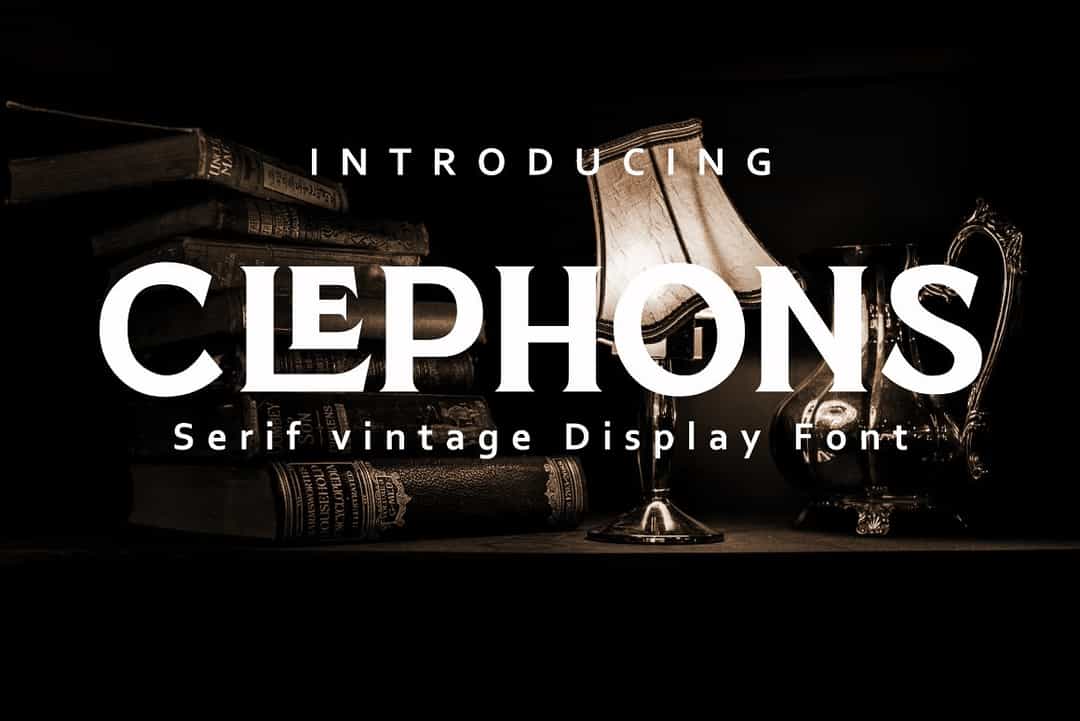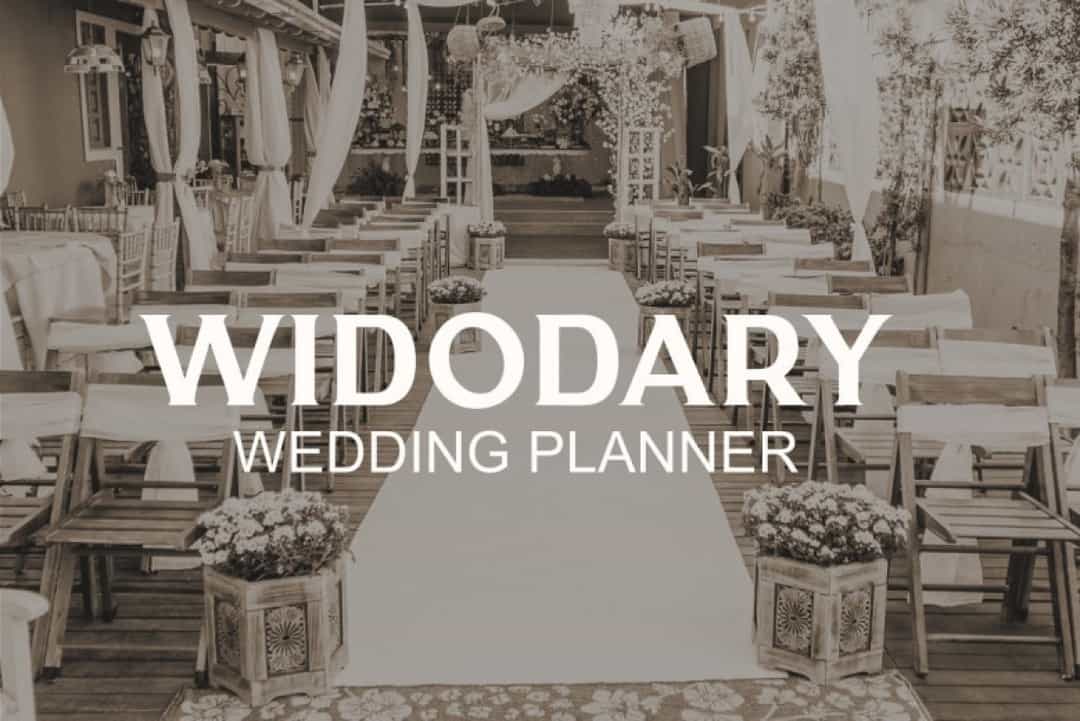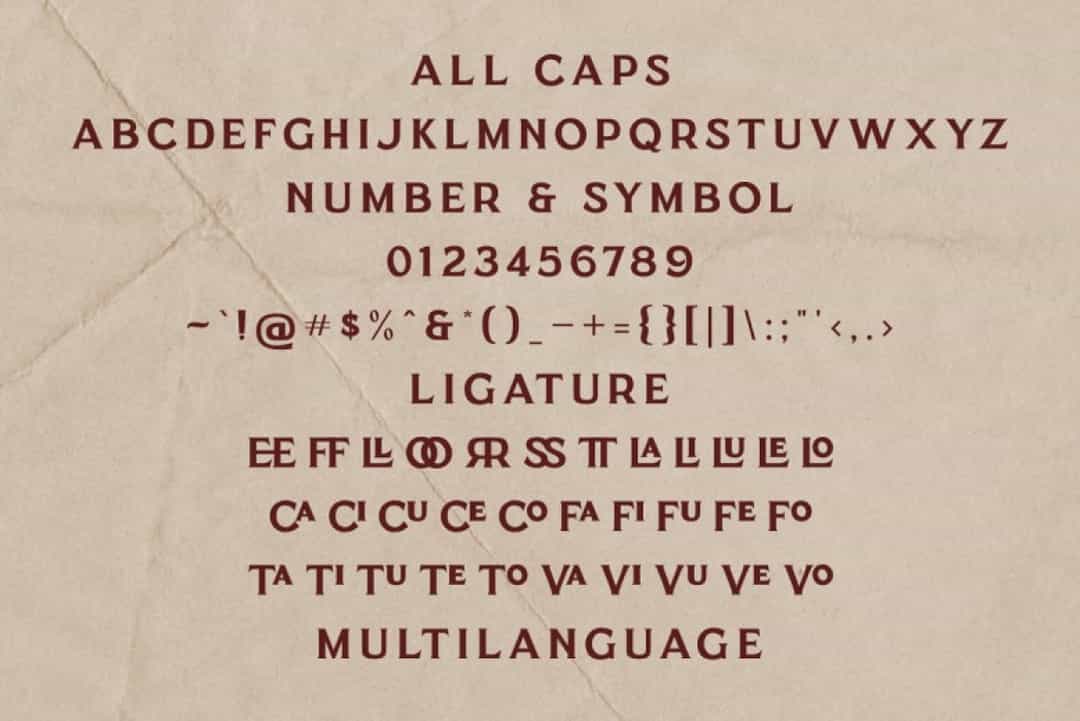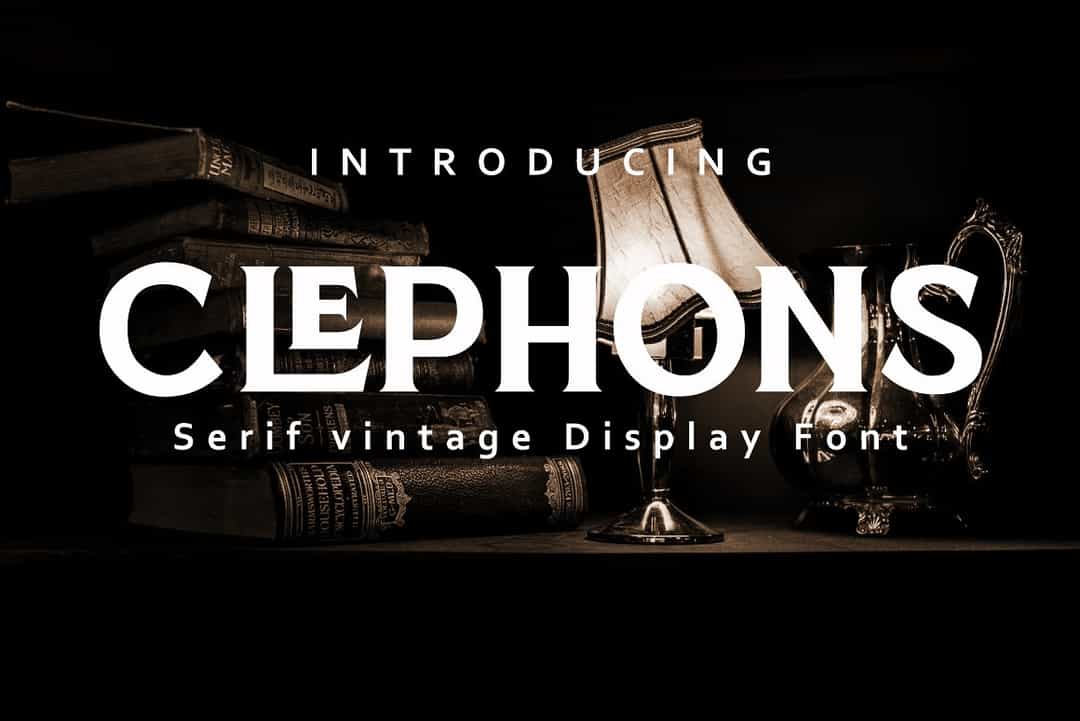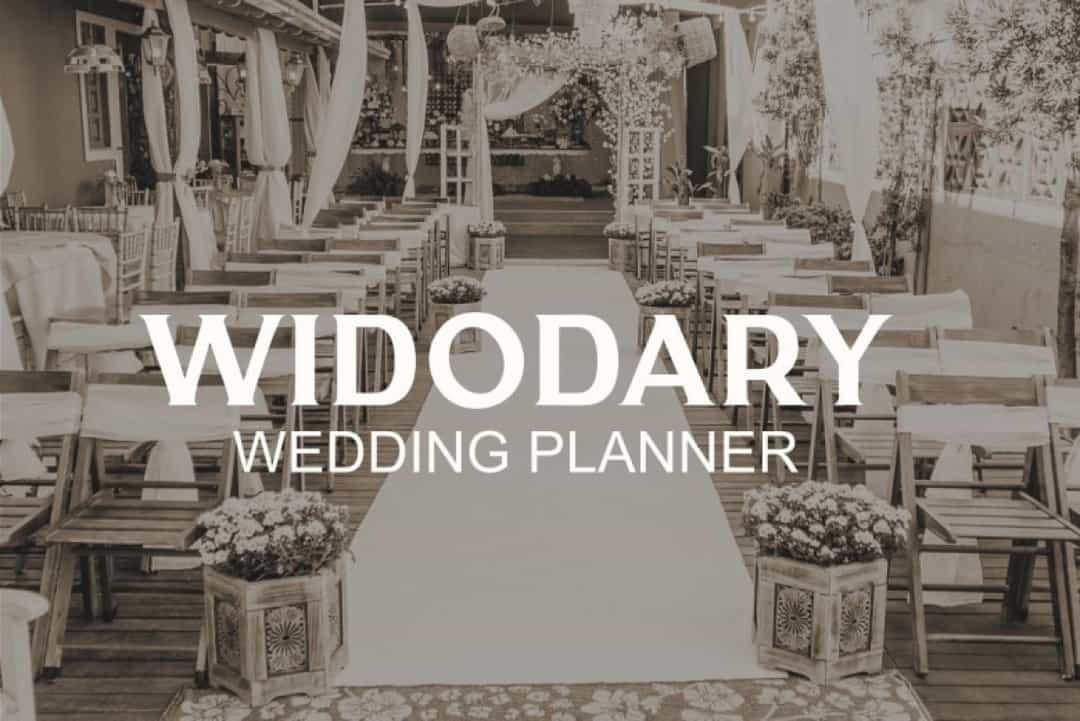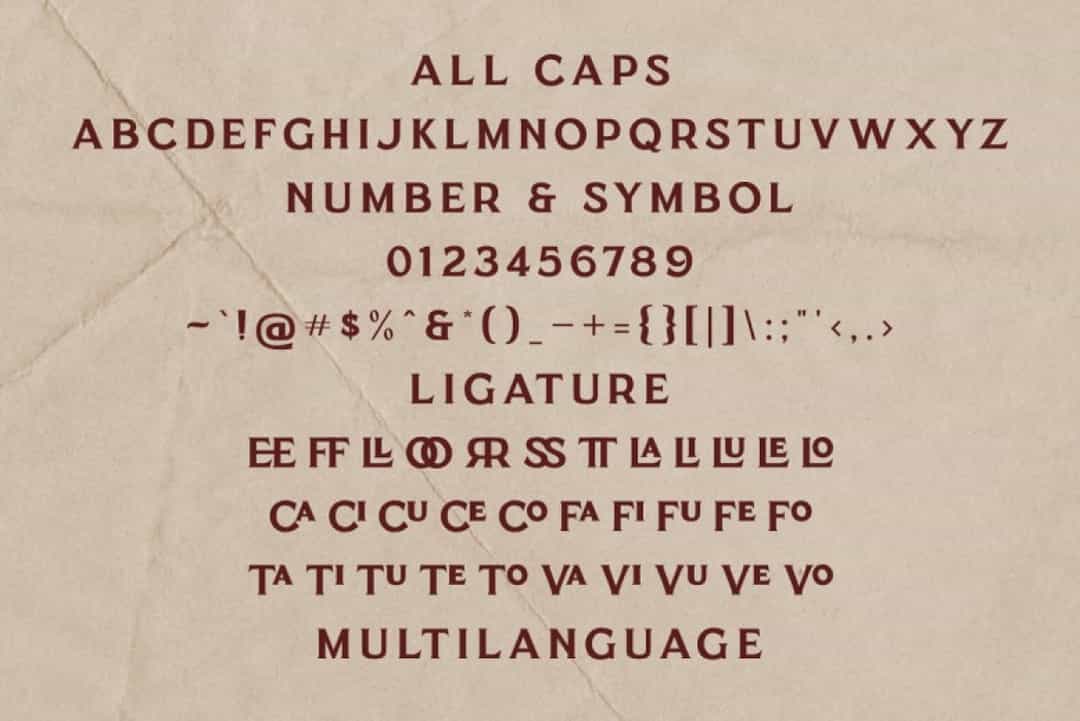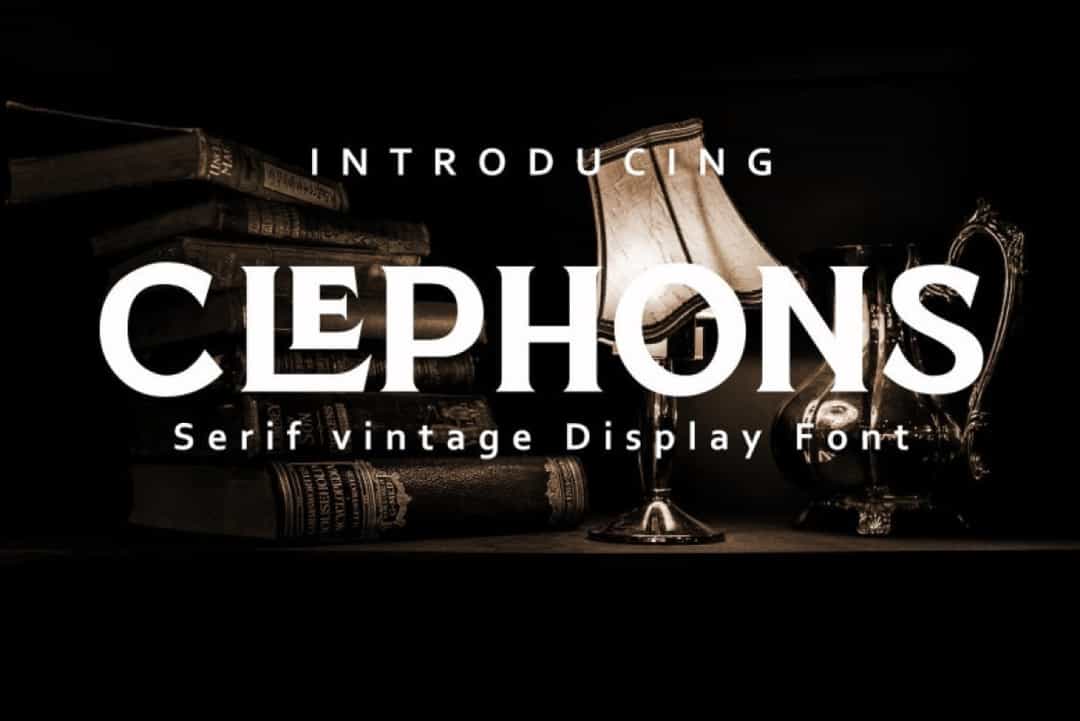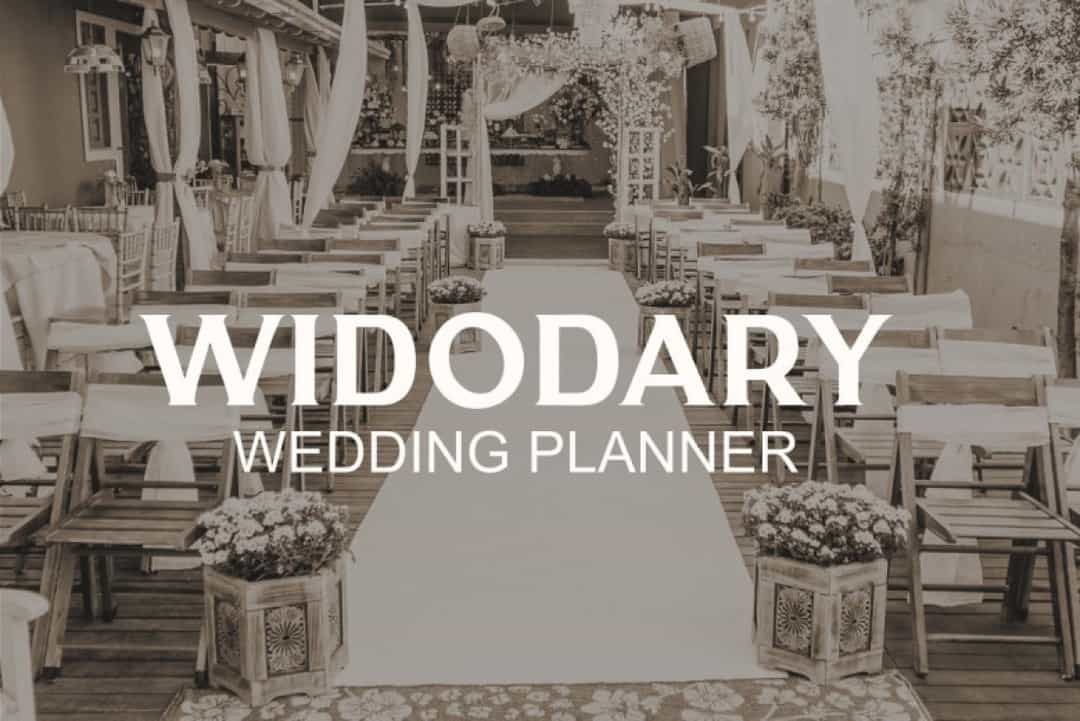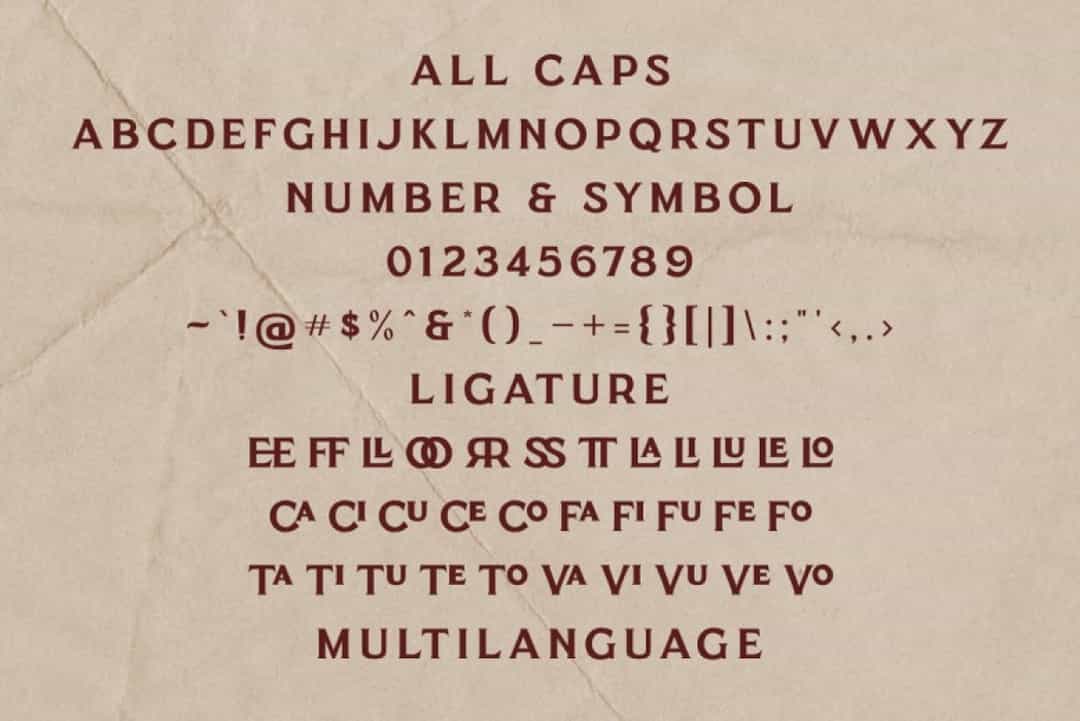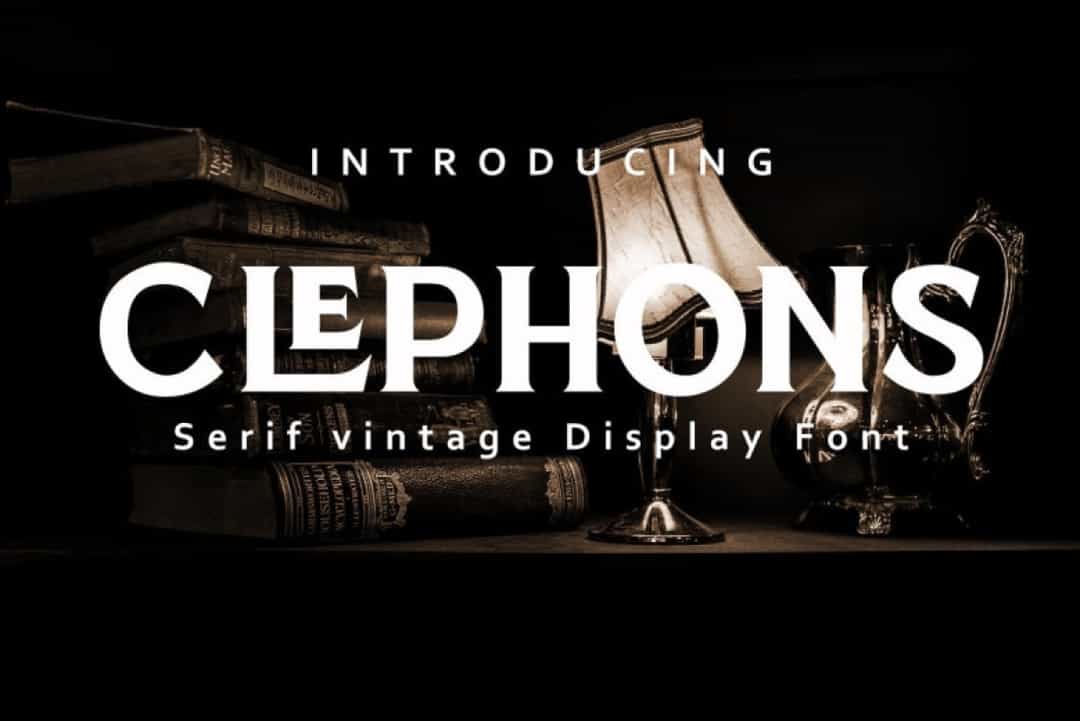
Clephons is an elegant serif display font that exudes classic sophistication. As an all-capital typeface, this font pays homage to classic letters while adding modern-day elegance. Perfect for headlines, branding and logo designs featuring vintage or classic themes; Clephons effortlessly captures the spirit of an earlier time.